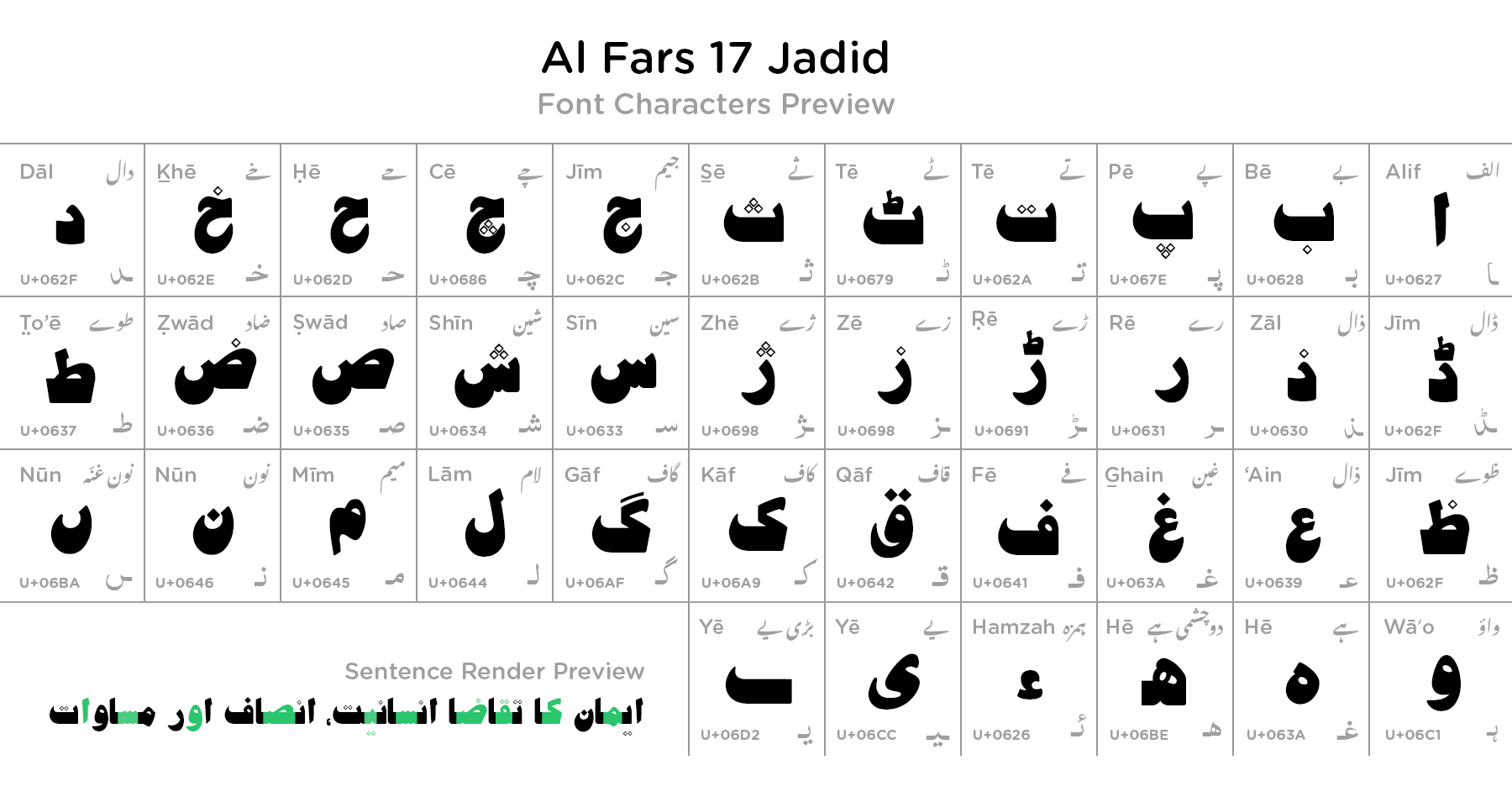
Al Fars 17 Jadid is a bold Arabic font designed and published by Syed Irtiza Hassan Rizvi in January 2016. The font perfectly reimagines the classic Naskh script with a modern edge. This font balances tradition and modernity, offering simplified letterforms and balanced spacing for enhanced legibility. Its bold strokes and subtle geometric elements inject a striking visual appeal, offering a fresh take on traditional Arabic calligraphy. Especially, the font's thick strokes and sharp angles command attention, making it ideal for headlines, logos, and titles where a strong visual presence is essential. However, with its single font-weight, it does not offer much flexibility. Therefore limiting its usage to short bursts of texts that need immediate attention.